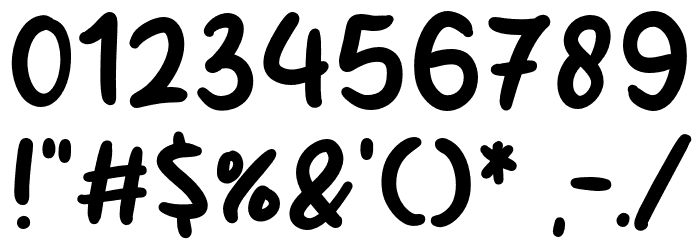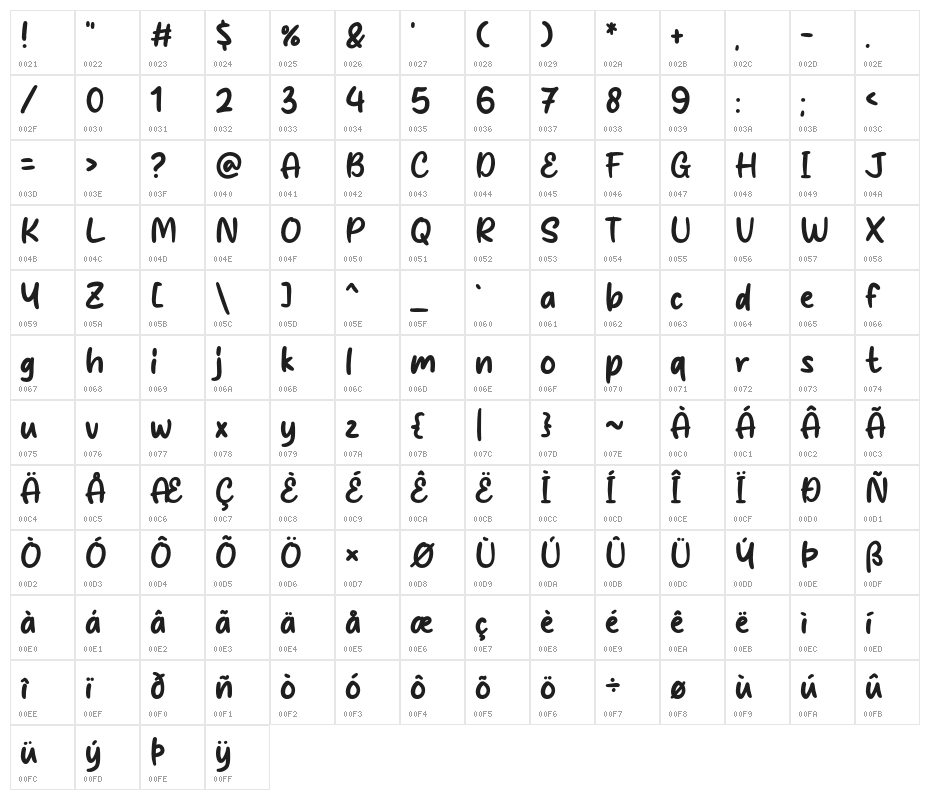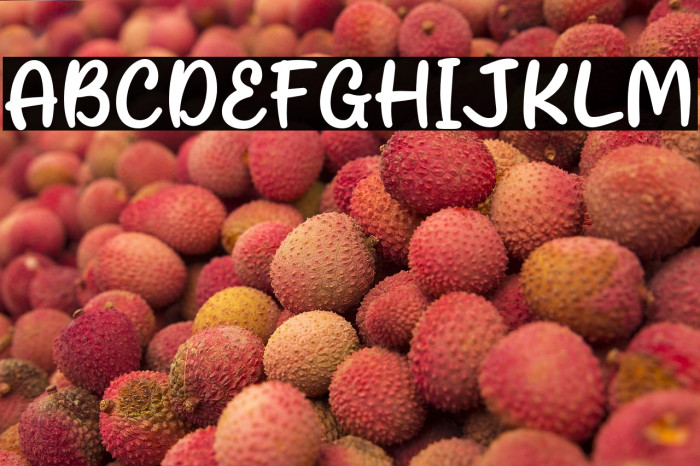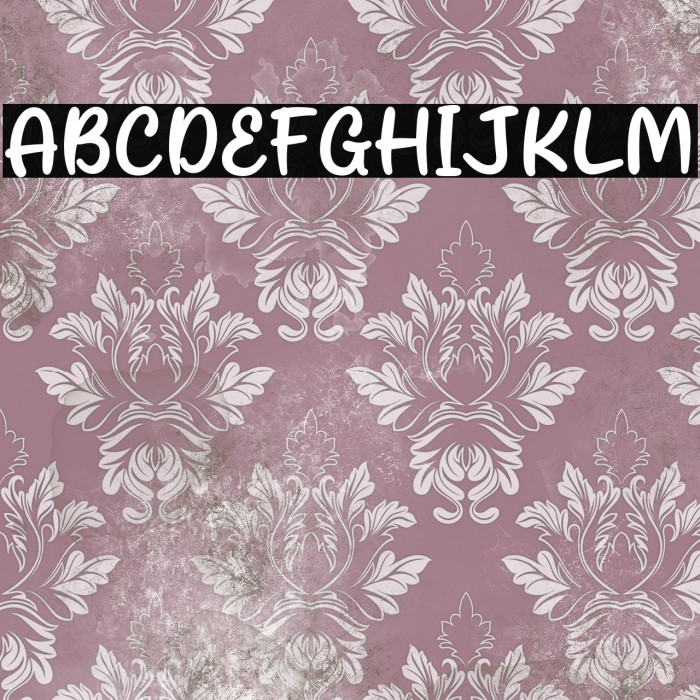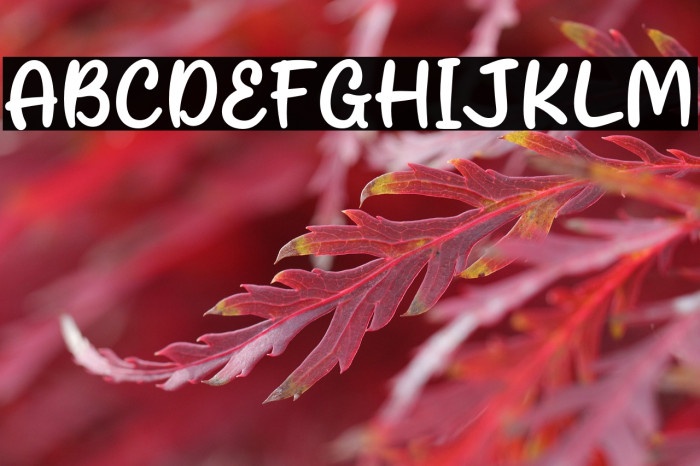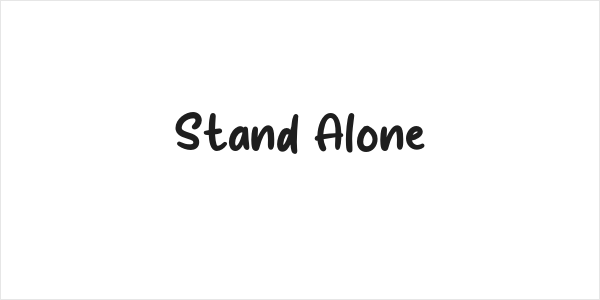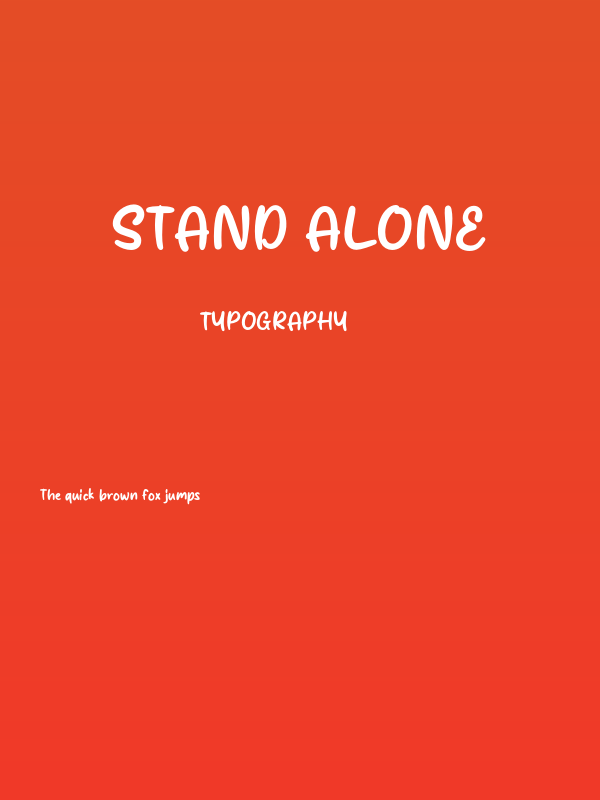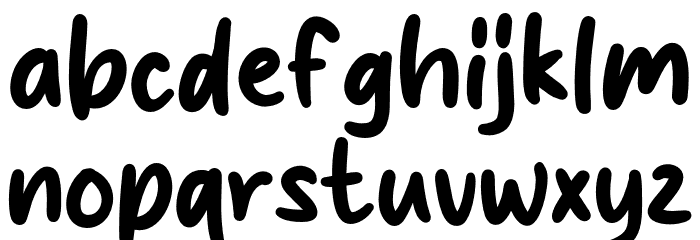
Stand Alone Font
Stand Alone Description
This font features a playful and casual handwritten style, characterized by its smooth, rounded edges and consistent stroke width. The letters are bold and slightly slanted, giving them a lively and informal appearance. The uppercase and lowercase letters maintain a uniform height, contributing to a cohesive look. Numbers and special characters are designed to match the overall style, ensuring versatility across different uses. The font's friendly and approachable nature makes it suitable for projects that require a personal touch.
| Overall Style | Casual, Playful |
| Proposed Projects | Ideal for greeting cards, children's books, playful branding, and social media graphics. |